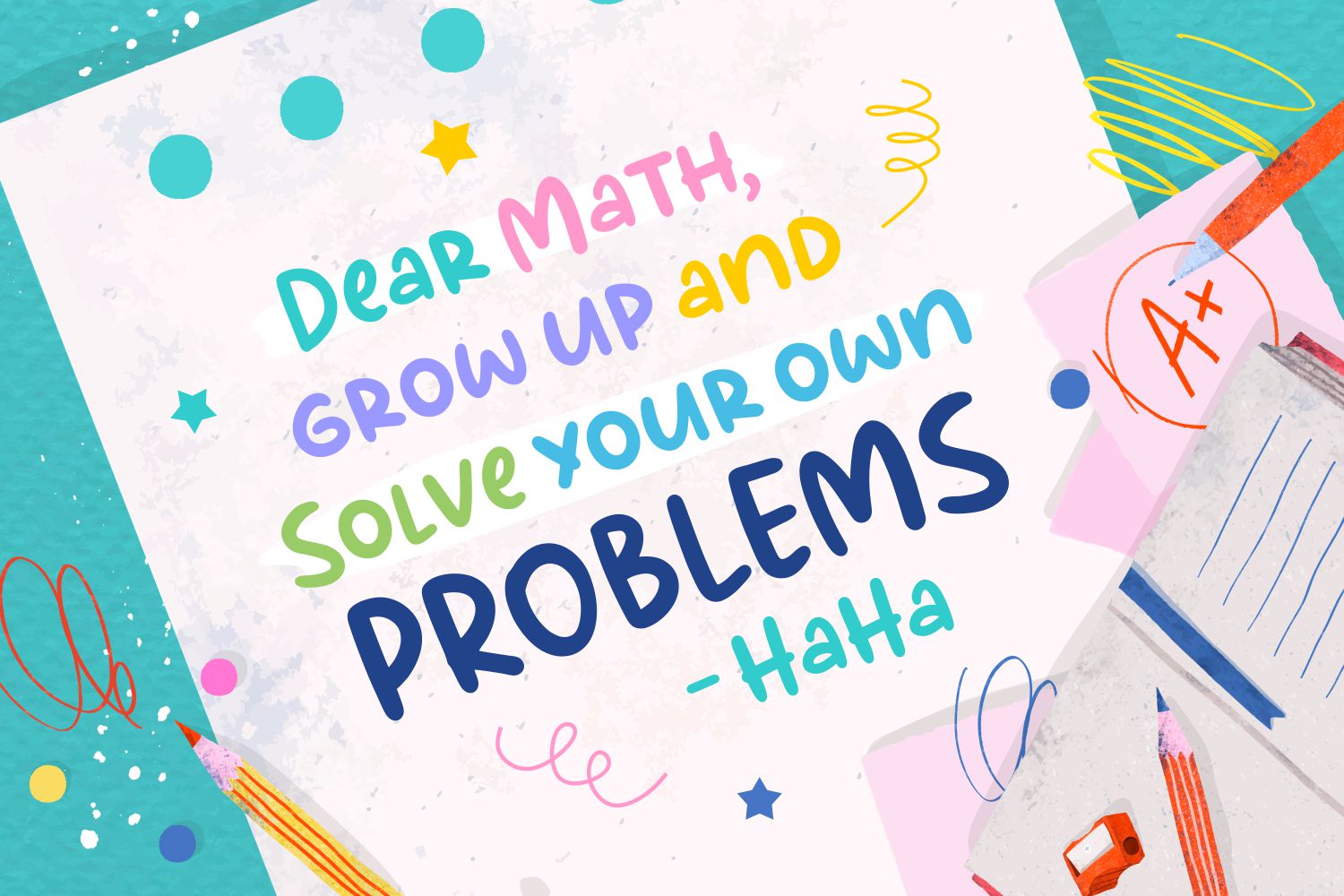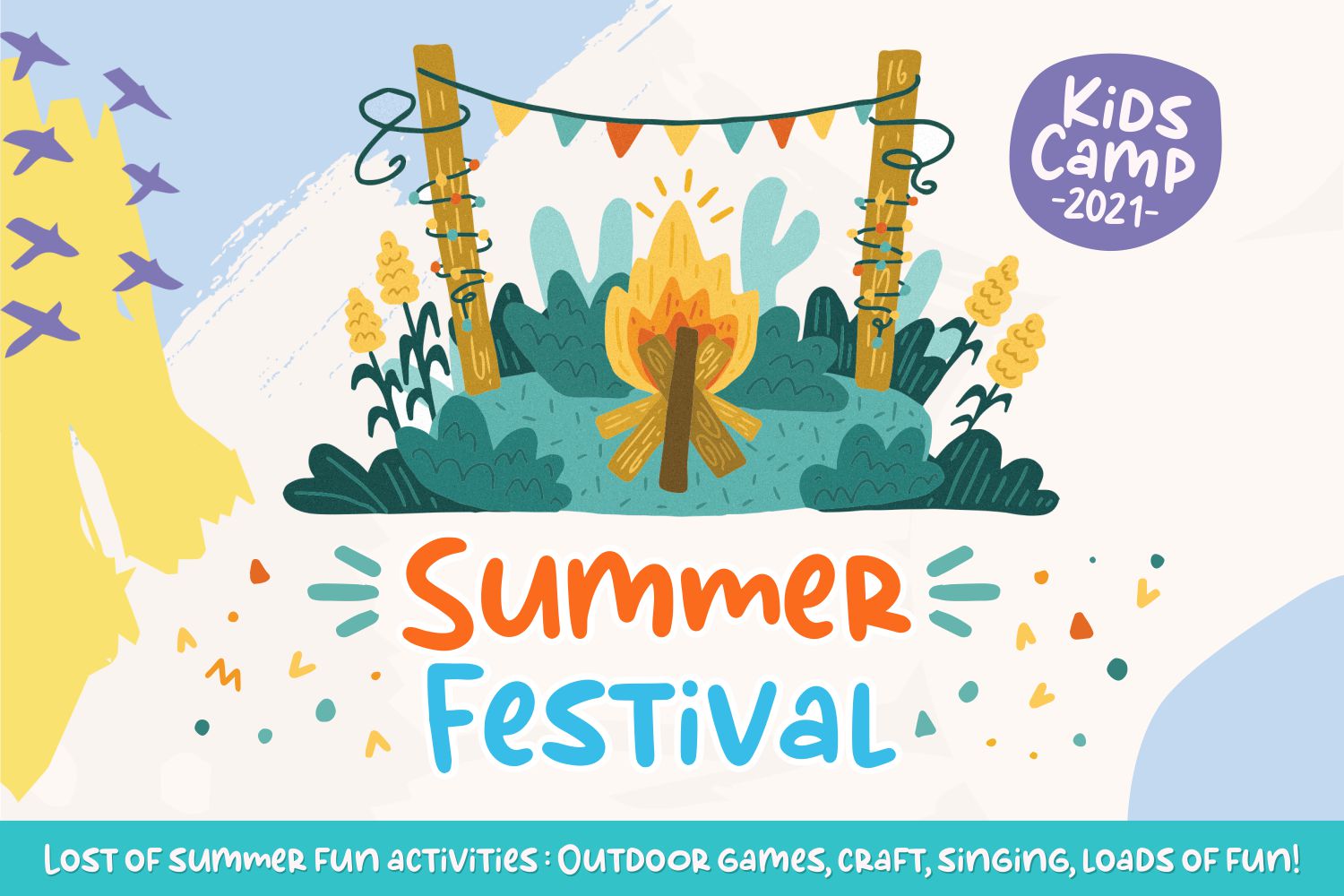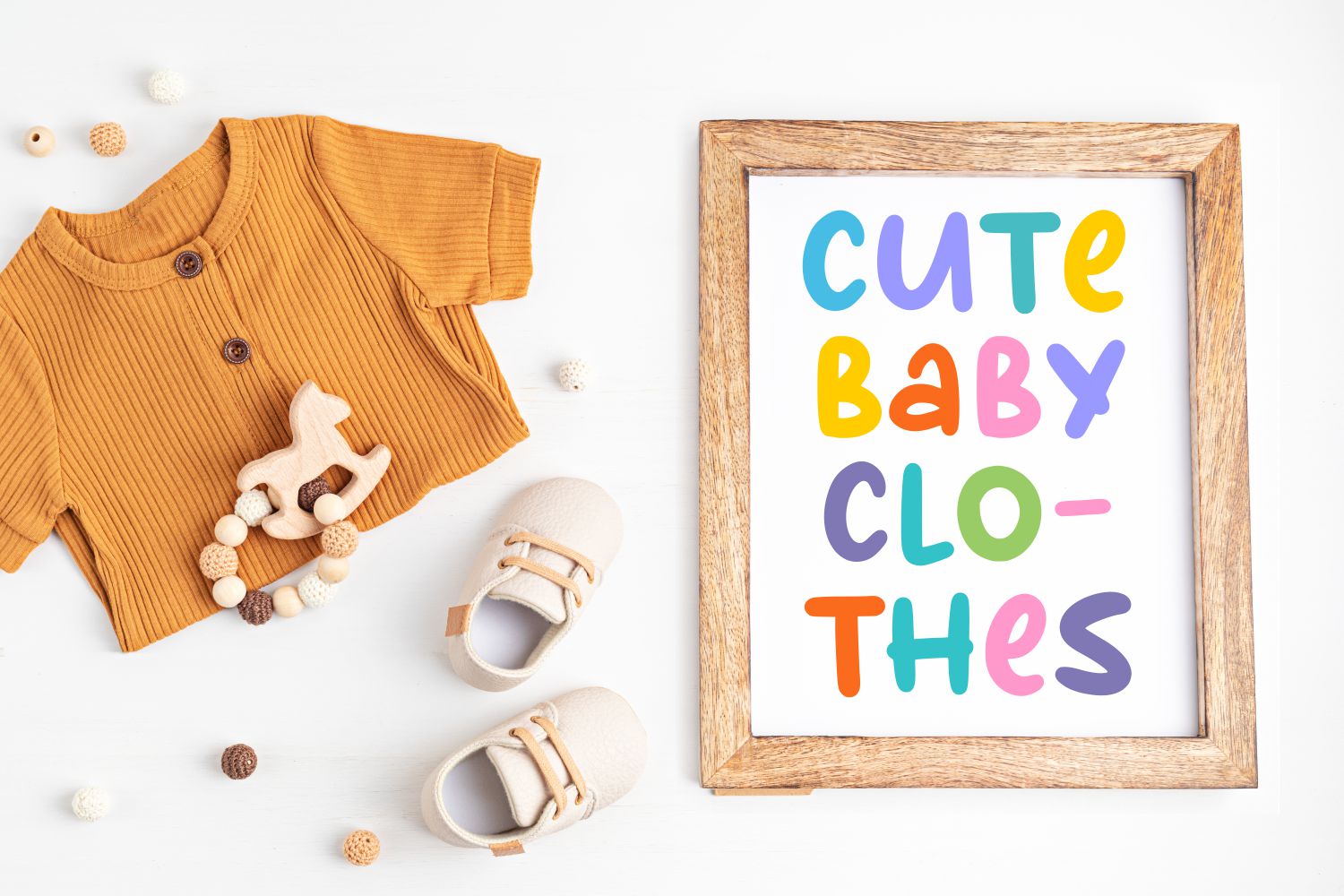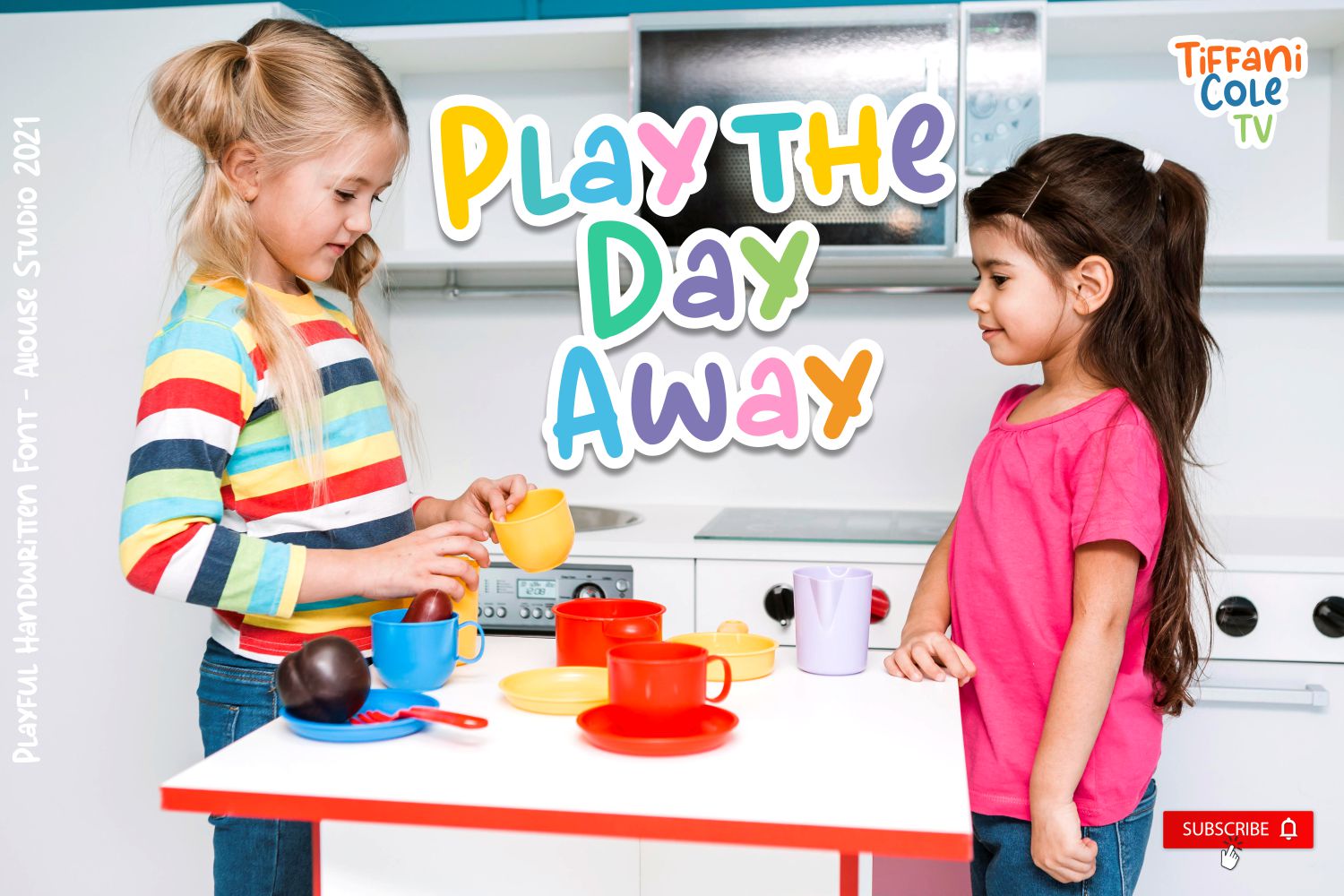
Kreasi Literasi Font
Kreasi Literasi Display Font
It’s a playful and paint brushed display font. It has a very relaxed style and it will match a wide range of design ideas, from school projects to children party decorations.